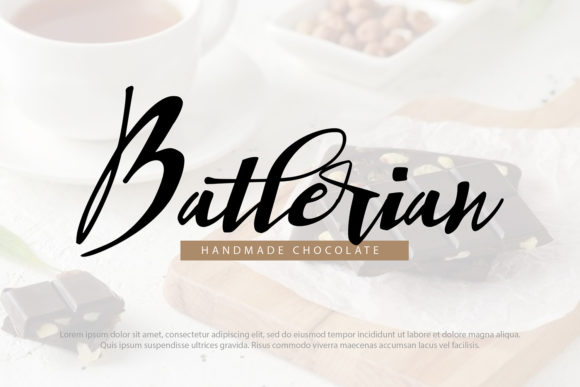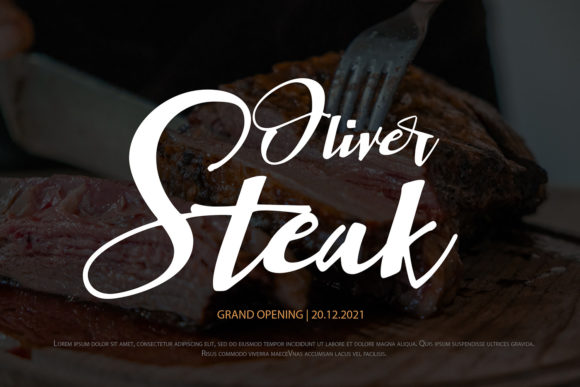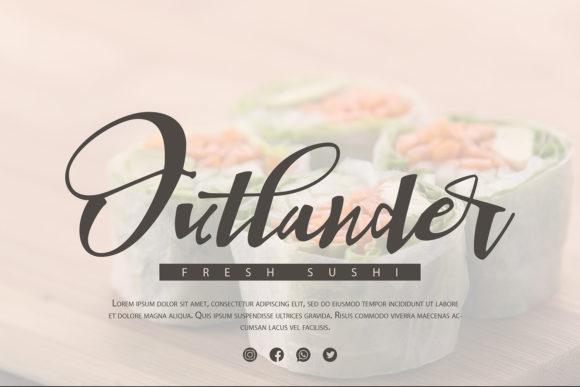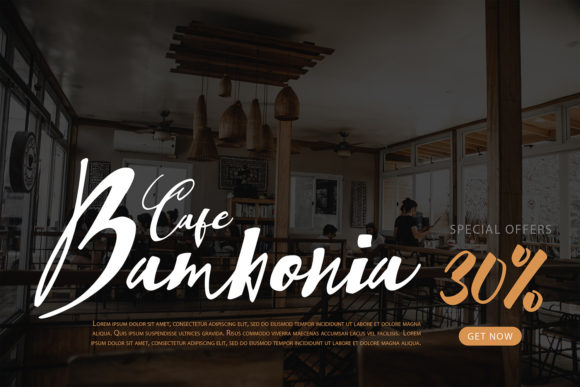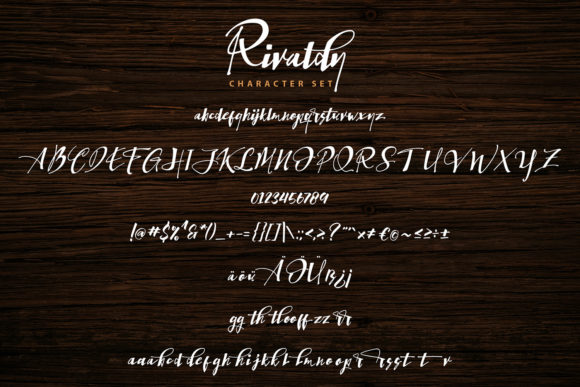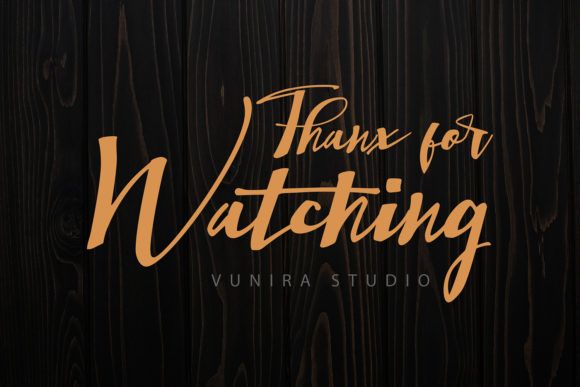
Introduction to Rivaldy Font
As a designer, have you ever found yourself staring at a blank canvas, trying to bring a creative project to life? You envision a beautiful, elegant script that perfectly captures the essence of your idea, but it seems just out of reach. This is where the Rivaldy Font comes in – a stunning, high-quality design resource that will transport your projects to new heights.
With its timeless classic calligraphy-inspired aesthetic and impeccable form, the Rivaldy Font is the perfect addition to any creative endeavor. Whether you’re working on a free download or a paid project, this versatile font is sure to elevate your design to the next level. And with its PUA encoded features, accessing all the glyphs and swashes is a breeze, allowing you to customize your design with ease.
As a valuable design resource, the Rivaldy Font offers a level of sophistication and style that’s hard to find. Imagine your design with a transparent background, perfectly complemented by the elegant script of the Rivaldy Font – it’s a match made in design heaven. So why wait? Discover the Rivaldy Font today and take your creative projects to new and exciting places.
Key Features of Rivaldy Font
• High-quality design: Rivaldy Font offers a premium aesthetic suitable for creative projects.
• Transparent background: The font’s transparent background allows for seamless integration with various design elements.
• High-resolution design: With a resolution of 300 DPI, this font is ideal for printing and high-quality digital displays.
• Unique characteristics: Rivaldy Font features a distinctive, modern design that sets it apart from other fonts.
• Excellent for creative projects: This font is perfect for designers working on branding, typography, or any other creative project.
Honest Review: Rivaldy Font
• ✨ Great for titles and headings due to its unique design
• ✨ High-quality design makes it perfect for print projects
• ✨ Easy to read due to its clear and crisp letters
• ✨ Suitable for a variety of design styles, from modern to vintage
• ⚠️ The font does not come with a transparent background, which can be a problem if you’re looking for a more flexible design resource
• ⚠️ Limited character set, which may not be suitable for longer texts
Overall, I’m quite impressed with the Rivaldy Font. Its unique design and high quality make it a great addition to any design project. While it has a few limitations, it’s still a valuable resource for designers looking for a creative solution.
Rivaldy Font is perfect for various creative projects, including social media posts, presentations, and infographics. It’s also great for creating high-quality visuals for your website, blog, or marketing materials.
Tips for Getting the Most Out of Rivaldy Font
To get the most out of Rivaldy Font, experiment with different font sizes, colors, and styles. You can also combine the font with other design resources, such as images and shapes, to create visually appealing designs.